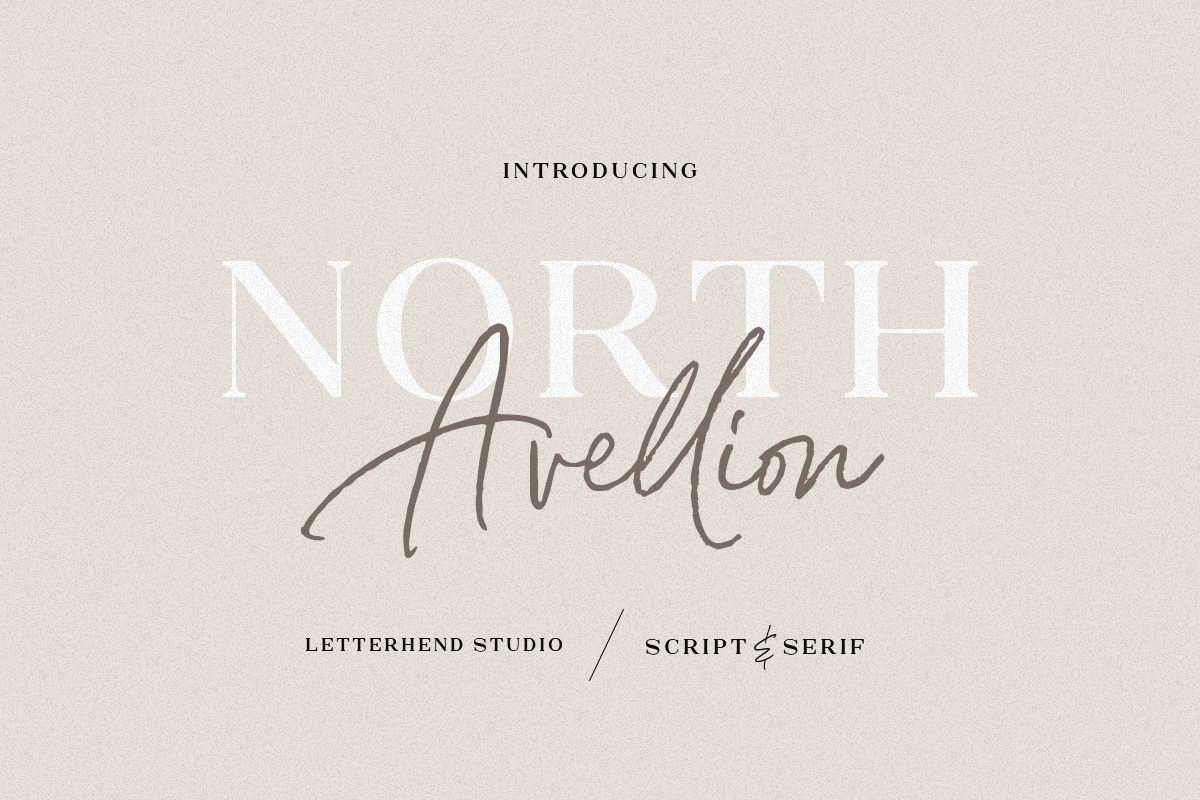
North Avellion - Script & Serif Duo Font
This sophisticated and harmonious typeface duo is perfect for luxury wedding invitations, premium brand identity systems, elegant book covers, high-end restaurant branding, boutique hotel signage, upscale fashion labels, refined stationery design, sophisticated magazine layouts, and exclusive event materials that require a distinguished, aristocratic aesthetic.
North Avellion - Script & Serif Duo Font brings excitement to design projects with its perfectly balanced combination of flowing script elegance and classic serif authority that captures the essence of northern European sophistication and timeless refinement. The font duo features graceful calligraphic script paired with dignified serif letterforms that create harmonious luxury while maintaining exceptional readability. Its aristocratic sophistication and noble presence make it an exceptional choice for brands that want to communicate heritage luxury, refined taste, and distinguished elegance in their prestigious communications.
North Avellion - Script & Serif Duo Font family includes complementary aristocratic styles: Script Light, Script Regular, Script Bold, Serif Light, Serif Regular, Serif Medium, and Serif Bold versions. Each style within the duo maintains perfect visual harmony while providing designers with complete flexibility for creating cohesive luxury branding systems. The family also features noble ornaments, aristocratic decorative elements, refined ligatures, and distinguished symbols that enhance the overall sophisticated aesthetic.
When searching for luxury typography solutions, North Avellion - Script & Serif Duo Font Free Download represents the pinnacle of aristocratic design excellence and European sophistication. Professional designers consistently choose this font duo for its ability to instantly establish heritage credibility while ensuring optimal legibility across prestigious applications. The typeface performs magnificently from intimate luxury invitations to grand estate signage, maintaining its distinguished appeal at every aristocratic scale.
The font duo's noble excellence includes precision-crafted character relationships inspired by European calligraphic traditions, superior luxury reproduction quality, and advanced features that honor centuries of aristocratic typography heritage. Whether you're designing for luxury hospitality brands, heritage organizations, or exclusive membership establishments, this font duo delivers the distinguished elegance that resonates with discerning audiences seeking authentic luxury experiences and refined cultural sophistication.
For creative professionals working with luxury and heritage markets, this font duo represents an indispensable foundation for creating memorable aristocratic communications. The thoughtful pairing of complementary styles ensures versatile luxury design possibilities while maintaining distinguished consistency. Download this exceptional typeface duo today and experience how aristocratic typography can transform your projects into prestigious brand experiences that honor European heritage and inspire appreciation for timeless sophistication.